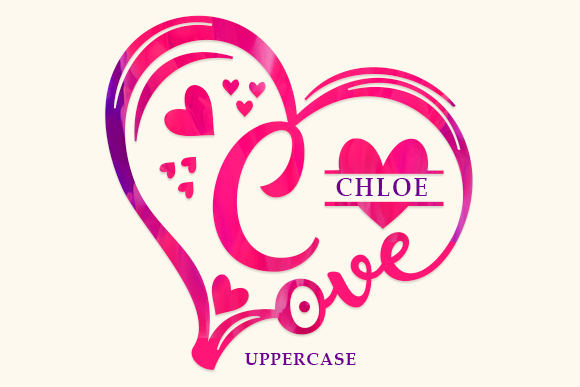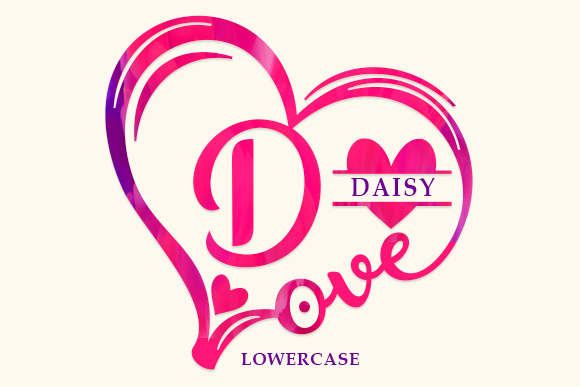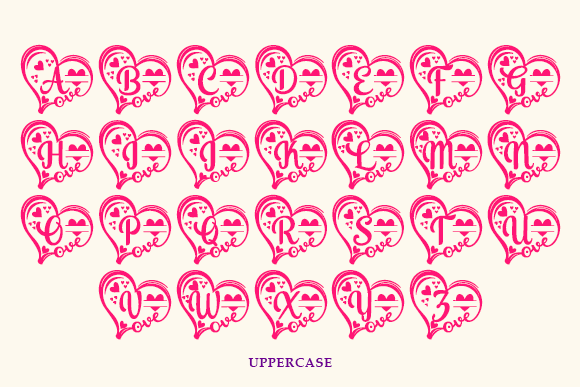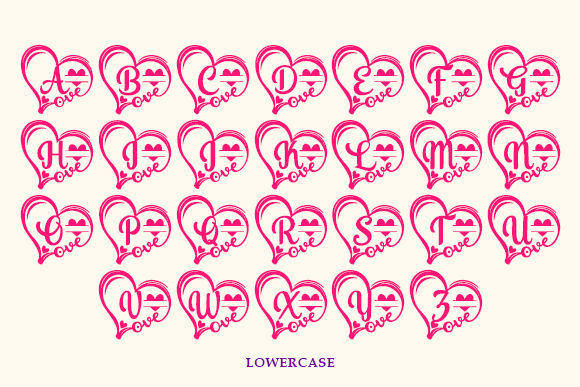
Introducing Belinda Monogram Font: Elevate Your Designs with Elegance and Charm
In the world of typography, a well-crafted font can make all the difference in elevating your designs from ordinary to extraordinary. If you’re a designer, crafter, or simply someone who appreciates the art of beautiful lettering, you’re in for a treat. Say hello to Belinda Monogram Font, a refined decorative font that is sure to capture your heart with its genuine feel and charming ornaments.
What is Belinda Monogram Font?
Belinda Monogram Font is a stunning decorative font that boasts a unique blend of elegance and playfulness. Its refined design makes it perfect for creating a wide range of projects, from wedding invitations and stationery art to social media posts and greeting cards. With its beautiful ornaments and genuine feel, Belinda Monogram Font is sure to add a touch of sophistication and whimsy to any design.
Key Features of Belinda Monogram Font
- Refined Decorative Design: Belinda Monogram Font features a beautifully crafted design that exudes elegance and refinement. Its intricate details and charming ornaments make it perfect for creating stunning visual content.
- Genuine Feel: Unlike many digital fonts, Belinda Monogram Font has a genuine feel that makes it perfect for creating handmade-style projects, such as wedding invitations, stationery art, and greeting cards.
- Versatile: Whether you’re designing for print or digital media, Belinda Monogram Font is versatile enough to use in a wide range of projects, from social media posts to blog headers.
Uses for Belinda Monogram Font
So, what can you create with Belinda Monogram Font? The possibilities are endless! Here are a few ideas to get you started:
- Wedding Invitations: Create stunning wedding invitations that set the tone for a beautiful and memorable wedding day.
- Stationery Art: Add a touch of elegance to your stationery art with Belinda Monogram Font’s charming ornaments and refined design.
- Social Media Posts: Elevate your social media posts with Belinda Monogram Font’s beautiful typography and eye-catching design.
- Greeting Cards: Create cute and personalized greeting cards for special occasions, such as birthdays, anniversaries, and holidays.
Why Choose Belinda Monogram Font?
With so many fonts available, why choose Belinda Monogram Font? Here are just a few reasons why designers and crafters love this beautiful font:
- Unique Design: Belinda Monogram Font’s unique design sets it apart from other fonts, making it perfect for designers who want to create something truly special.
- Easy to Use: Despite its intricate design, Belinda Monogram Font is easy to use and works seamlessly with most design software.
- High-Quality: Belinda Monogram Font is a high-quality font that is designed to deliver exceptional results, whether you’re designing for print or digital media.
If you’re looking for a font that will elevate your designs and add a touch of elegance and charm, look no further than Belinda Monogram Font. With its refined decorative design, genuine feel, and versatile uses, this beautiful font is sure to become a favorite among designers and crafters. So why wait? Fall in love with Belinda Monogram Font today and start creating stunning visual content that will leave a lasting impression.
- Belinda Monogram Font is a refined decorative font featuring charming ornaments.
- Its genuine feel makes it perfect for creating handmade-style projects.
- Belinda Monogram Font is versatile and can be used in a wide range of projects.
- Its unique design sets it apart from other fonts, making it perfect for designers who want to create something special.